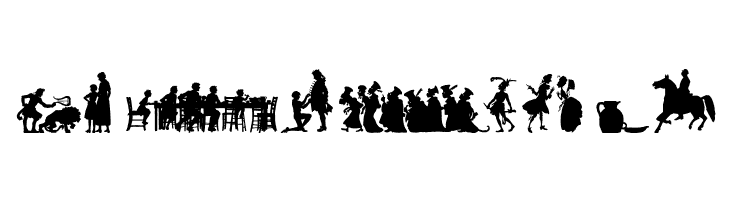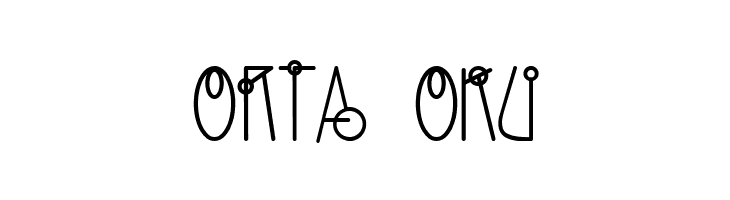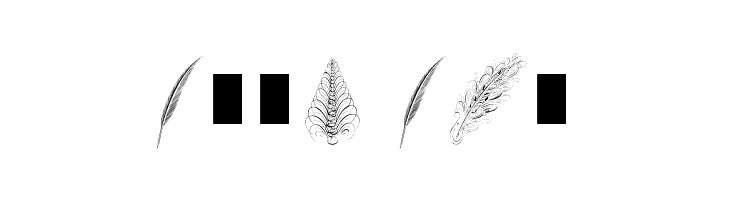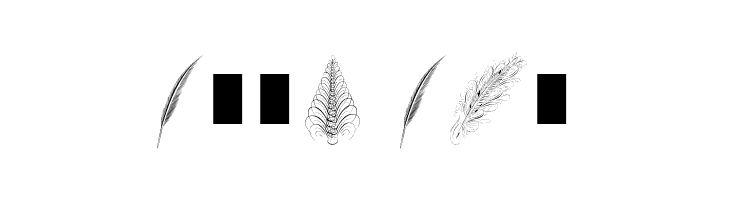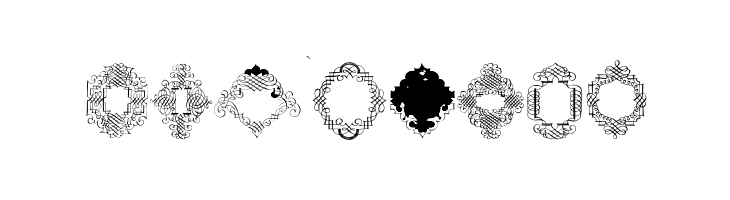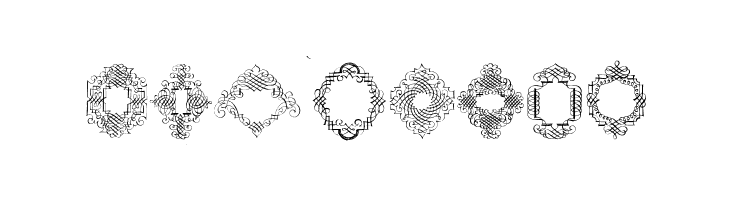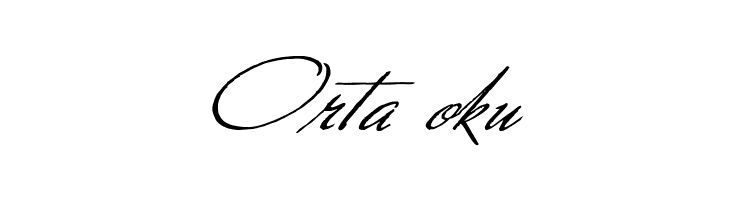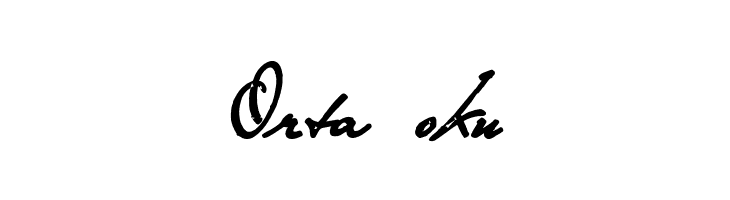
Ornamental floral and flourish dingbats with a vintage feel.
Ornamental fleurons and decorative motifs with a vintage, classical style.
A diverse collection of detailed silhouettes depicting various scenes and characters.
A futuristic font with circular and linear elements creating a modern, innovative look.
Ornamental feather and flourish illustrations with a penmanship style.
Ornate penmanship flourishes and feather illustrations.
Ornate, hand-drawn calligraphic frames with vintage flair.
Ornate hand-drawn calligraphic frames with vintage flourishes.
A classic, elegant script font with flowing cursive letterforms.
A bold, expressive handwritten font with fluid, cursive letterforms and dynamic flair.